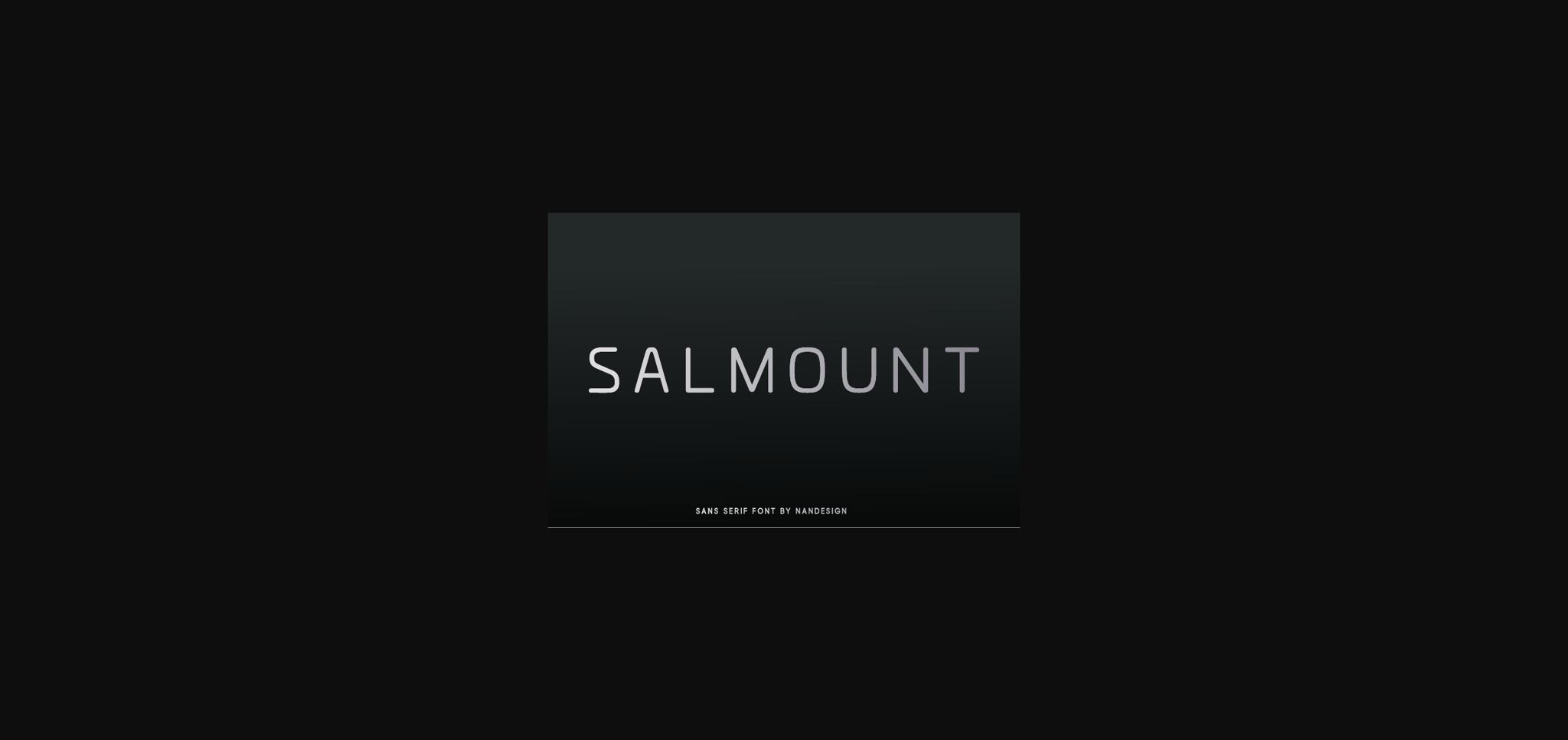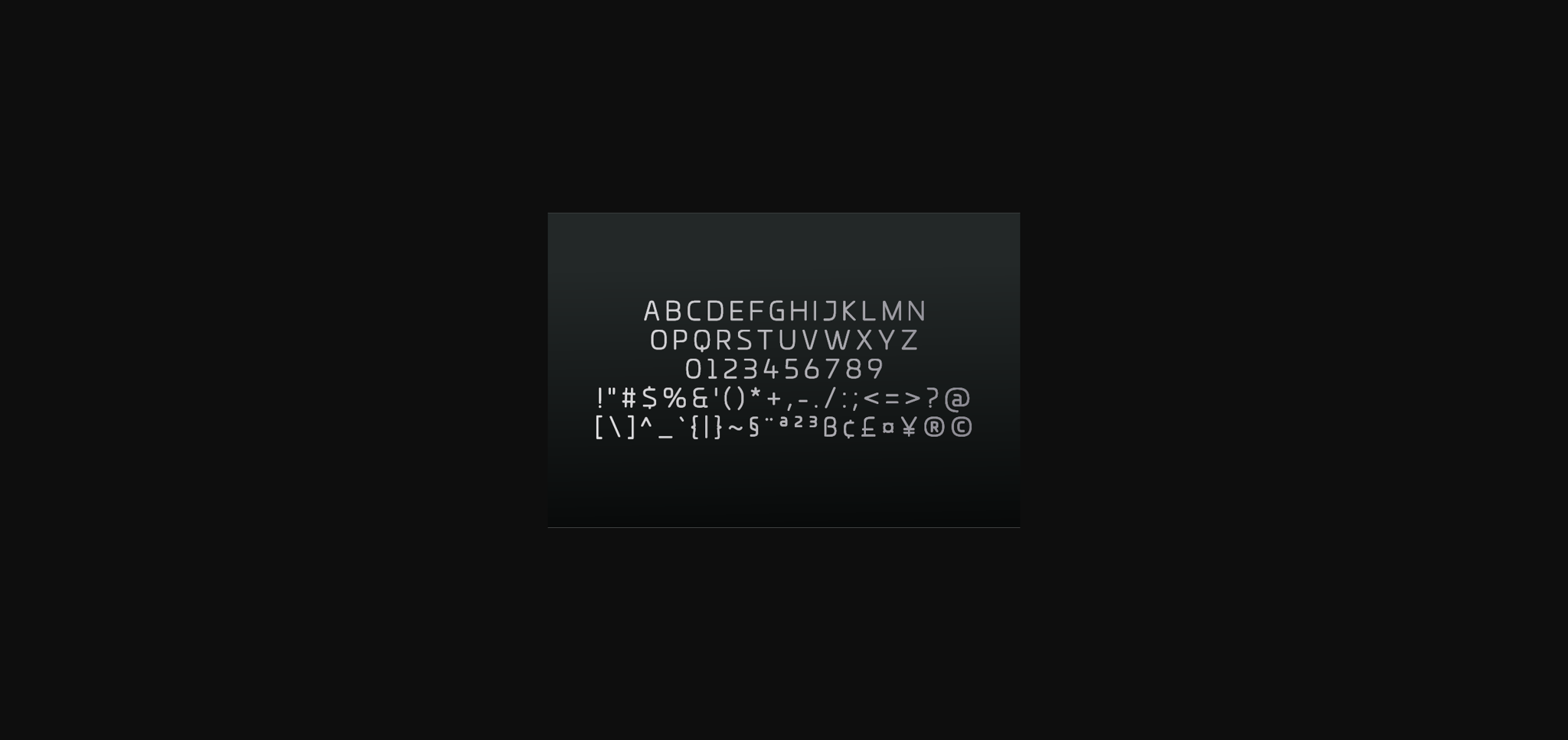
HomeSans Serif FontsSalmount Font Sans Serif Fonts Salmount Font FacebookTwitterPinterestWhatsApp 1 of 4 ... Salmount Font Poster 2... Salmount Font Poster 3... Salmount Font Poster 4... About Salmount Font Salmount is a simple and casual sans serif font with an undeniably clean feel. With its smooth and beautiful arrangement of letters, this typeface will fit in both formal and non-formal designs. DOWNLOAD NOW People also explored Fellant Font Happyday Font Daisy Lau Voyeur Monogram Magnolica Font Avellionts Font Random Luck Font Love Shot Font Valore Font 167 0 TagsSalmount Font Previous articleMarcelote FontNext articleArgon Font LEAVE A REPLY Cancel reply Comment: Please enter your comment! Name:* Please enter your name here Email:* You have entered an incorrect email address! Please enter your email address here Website: Save my name, email, and website in this browser for the next time I comment. Personal Use Free Foolish Hand Personal Use Free Read more about this font Mariyam Personal Use Free Read more about this font Monofonto Personal Use Free Read more about this font Shrag Script Personal Use Free Read more about this font BLOG Free Fonts Risk: Why Free Fonts Can Be Dangerous for Designers Free Fonts Risk: Why Free Fonts Can Be Dangerous for Designers Using free fonts is a common practice in web and graphic design. However, the... Best Fonts for YouTube Videos: Make Your Thumbnails Stand Out Transform Your Website: Elevate Your Typography with 7 Best Web Font Generators The 10 Best Handwriting Fonts to Add Personality to Your Designs